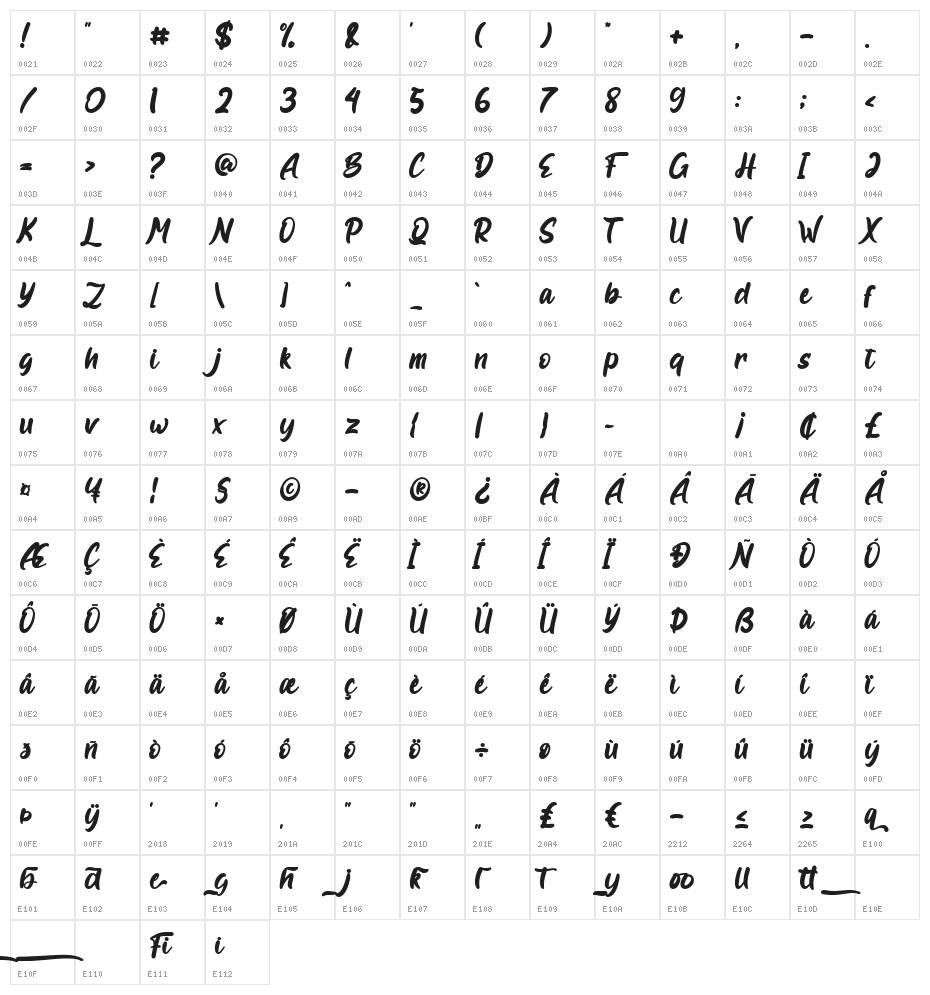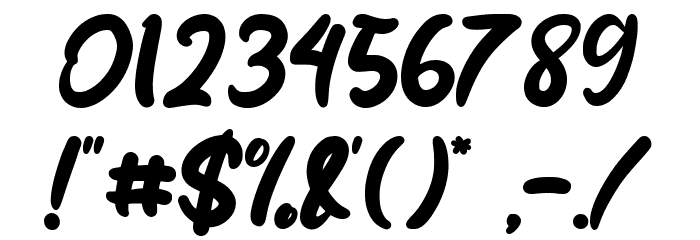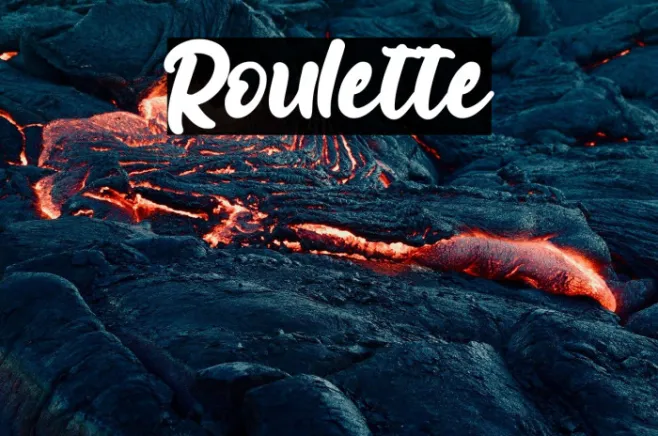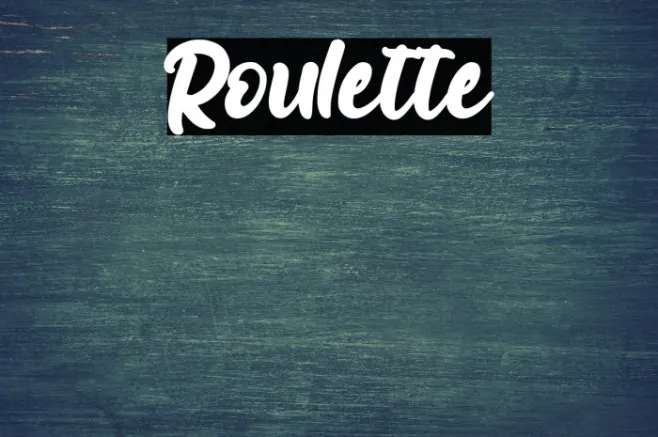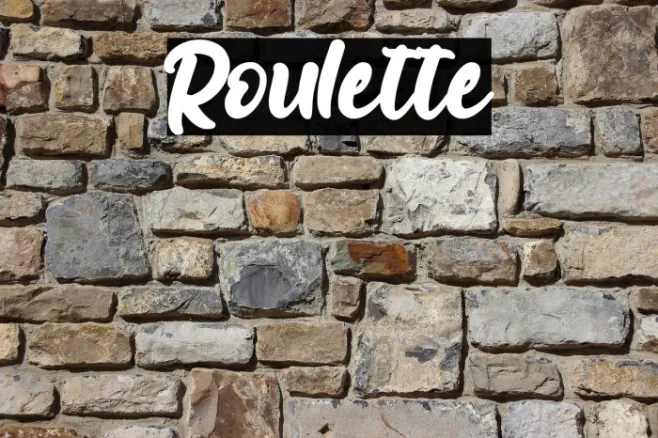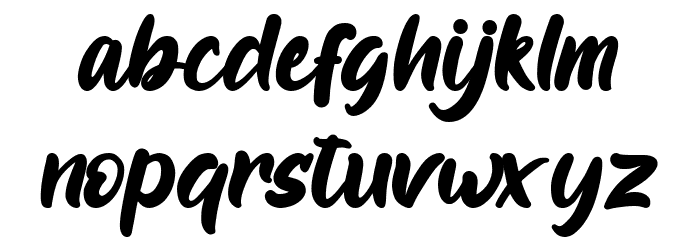
Roulette Font
Roulette Description
This font features a bold, cursive style with a playful and energetic flair. The letters are interconnected, creating a flowing script that mimics natural handwriting. The strokes are thick and consistent, providing a strong visual impact. The uppercase letters are slightly larger and more pronounced, while the lowercase letters maintain a smooth transition between each character. Numbers and special characters are designed to match the overall style, ensuring a cohesive look. This font is ideal for projects that require a personal touch or a sense of dynamism.